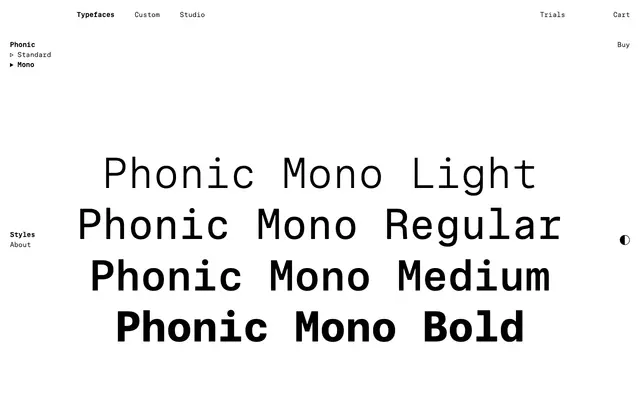
Phonic Mono
Phonic Mono specimen from Schick Toikka
The monospace companion to Phonic: four weights from Light to Bold with italics, fixed widths, rounded acute junctions and square-dot stylistic alternates.
Phonic Mono is the monospaced subfamily of Phonic. It carries over the parent's softened acute junctions, perpendicular and occasional diagonal terminals and round dots, and recasts them inside fixed character widths that emphasise the allure of the technical. Four weights from Light to Bold, all with italics, suit code, technical documentation and any setting where Phonic's machine-made cadence becomes the point. A stylistic alternate set swaps round dots and punctuation for square ones.
The monospaced sibling of Phonic; the foundry describe it as embracing the limitations of fixed character widths and emphasising the allure of the technical, with the same softened acute junctions found in the proportional Phonic.